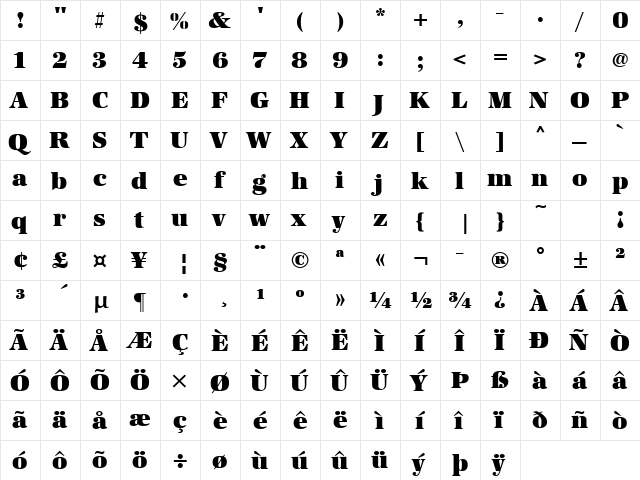
URWAntiquaTSup Regular
Design Context for URWAntiquaTSup Typeface
URWAntiquaTSup offers clean, dependable letterforms without strong stylistic allegiance, making it a practical choice for designers who need flexibility.